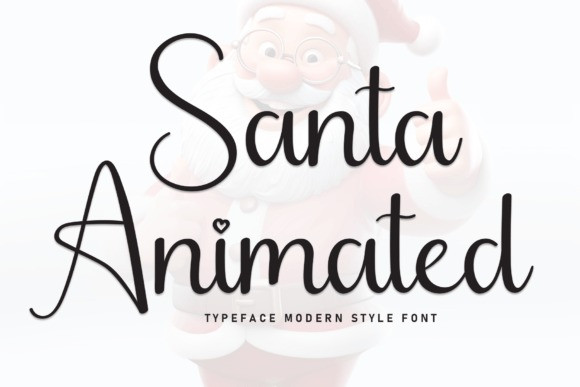
Santa Animate Handwriting Font
Santa Animate Handwriting Font is a sweet and friendly handwritten display font. Cute and fun, this font is ideal for writing wedding invitations, cards, or any other design that might need a fun touch!